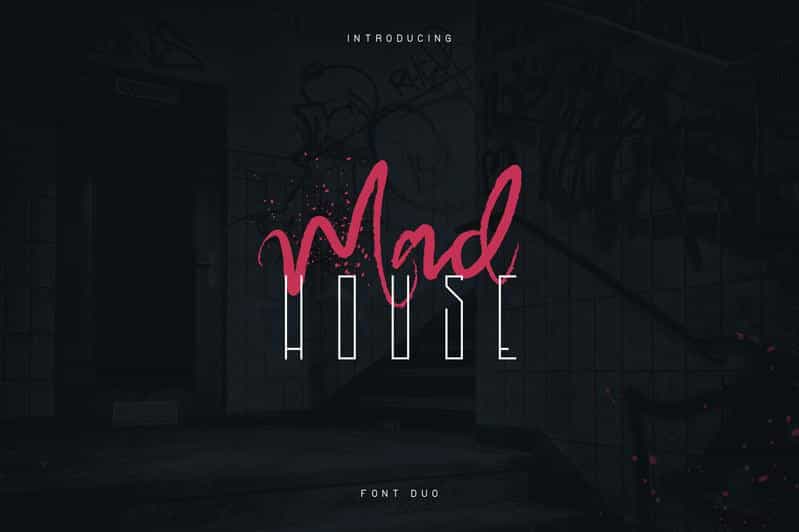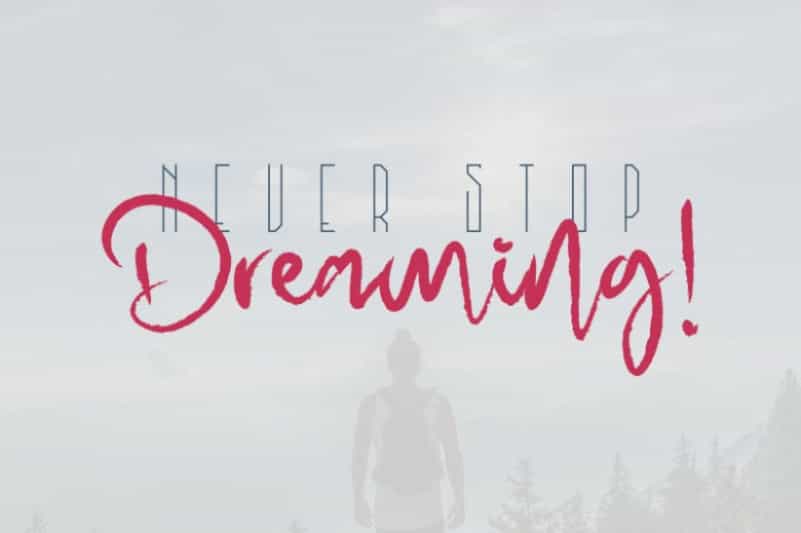
Madhouse Font Duo
Madhouse is a clean, long sans serif typeface with 5 weights and script font, elements and multilingual support. It is a very flexible font that can be used for both large and small sizes. Horizon is a great tool for branding projects, home-ware designs, product packaging, magazine headers – or just as the stylish text on any background image.